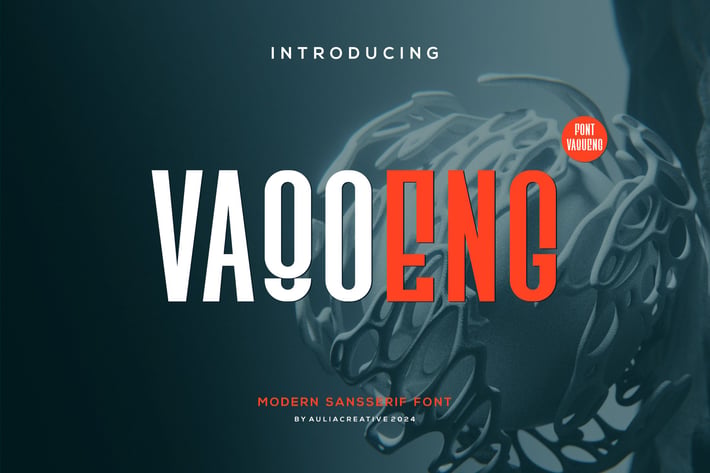
Vaqoeng - Modern Magazine Font & Logo Font
Introducing our new product Vaqoeng - Modern Megazine Font & Logo Font
Vaqoeng - Modern Megazine Font & Logo Font is and elegant and authentic display font.